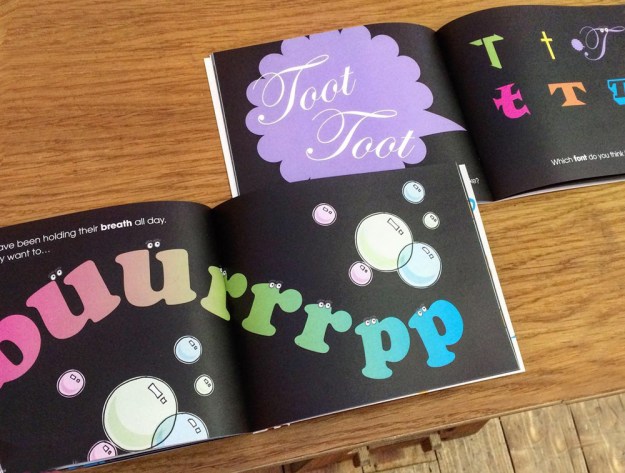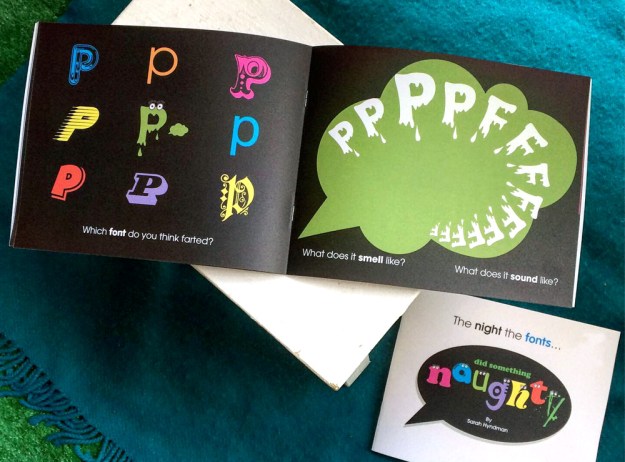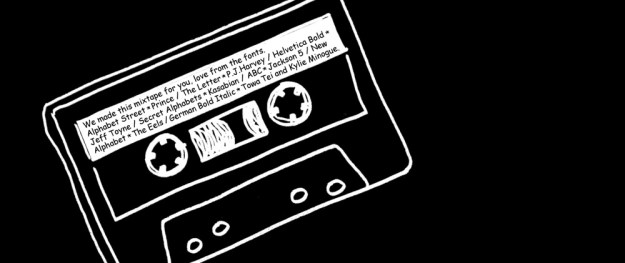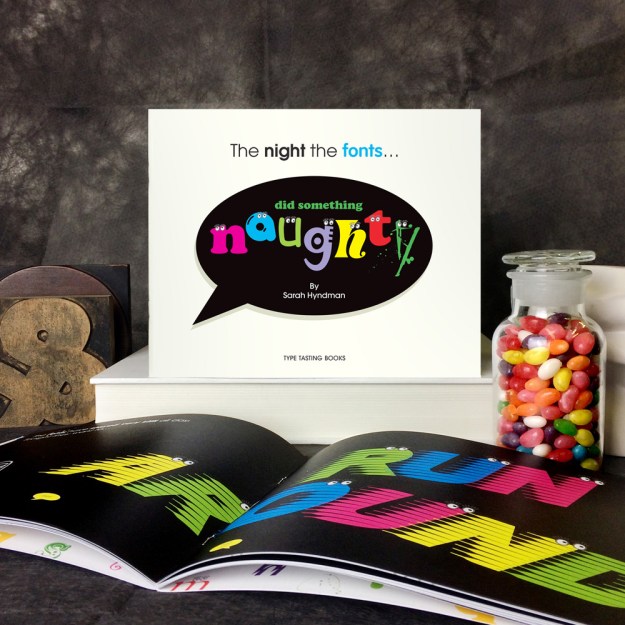
Introducing your children to the fantastical world of fonts will give them a head start towards a future career in the creative industries.
My 11-year-old nephew Eddie was excited to see me last Christmas because he wanted to talk about fonts. He’d started to learn about the topic at school and had lots of brilliant questions like “why are there so many?” The two of us have been hatching plans to create a book together and I’ve also been asking lots of other children what they think. My initial proposal had been rejected by a number of mainstream children’s publishers—the main feedback is that “children aren’t interested in fonts”. I disagree with this because the children I’ve spoken to are very interested in the topic. In response, I’m publishing these books as part of the new Type Tasting Books venture. This is how I published my first book ‘The Type Taster’, which is now published by Penguin/Random House as the bestselling ‘Why Fonts Matter’.
The book I’m writing with Eddie’s help will take longer to create so the first to be published are part of a series for children age three to six. I think this is a wonderful age to write for because it’s when children are learning to read, so these books become a conversation between the child and the grown-up reading with them. I’ve included lots of touches for grown-ups to appreciate; like the mix tape track listing, spotting where Comic Sans has a walk-on part, and the ‘cast of characters’ that name-checks the typefaces and explains why each was cast in its role.
Children’s books are so typographically expressive. From comic books to cartoons, this is a visual language they’re already very familiar with. What these books do is put the spotlight on the typefaces, making both children and the grown-ups who read with them more aware of the fantastical world of fonts.
The Night the Fonts…
The idea behind the ‘The Night The Fonts…’ book series is that when you close your books and go to sleep at night the fonts come out to play. Sometimes they’re bored and want to be naughty, other times they do stinky and loud farts. Just because children are learning about a serious topic doesn’t mean that it can’t be fun.